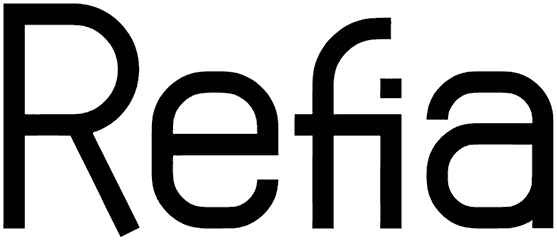
Refia Font
Want to assemble a visual masterpiece for leveling up in the design circumstances, so why not lend a helping hand to our website sans serif font cluster? Refia, as a freebie trendy sans serif font, comes in handy to make use of its modernity and clarity to create a magnetic effect with it.